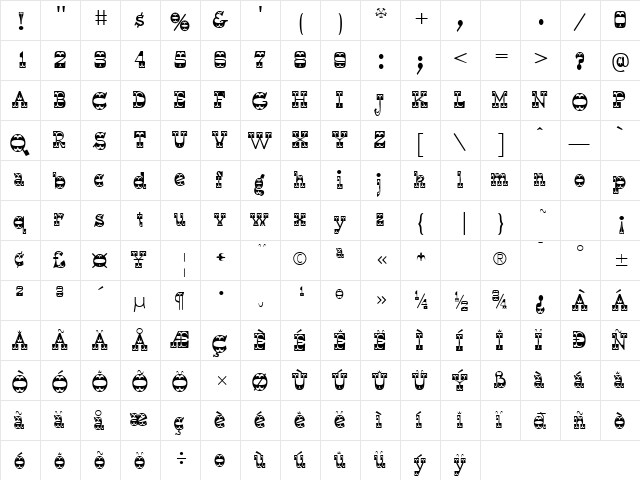
WyomingStrudel Regular
Design Context for WyomingStrudel Typeface
WyomingStrudel is a composed and adaptable typeface that performs quietly and consistently across a wide range of design contexts.